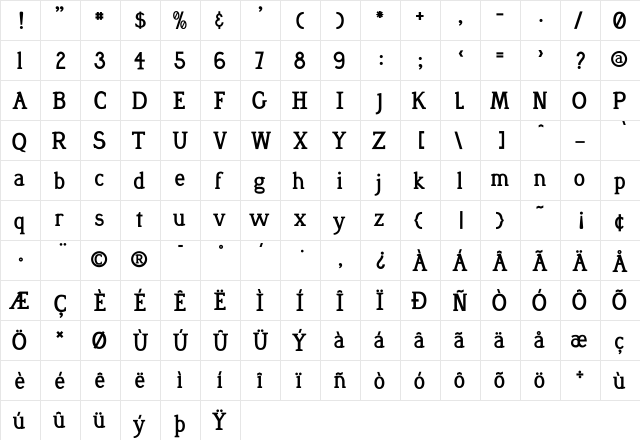
Desmond Bold Font Preview
Desmond Bold
Design Context for Desmond Typeface
Desmond is a composed and adaptable typeface that performs quietly and consistently across a wide range of design contexts. The heavy weight commands attention and anchors typographic hierarchies.